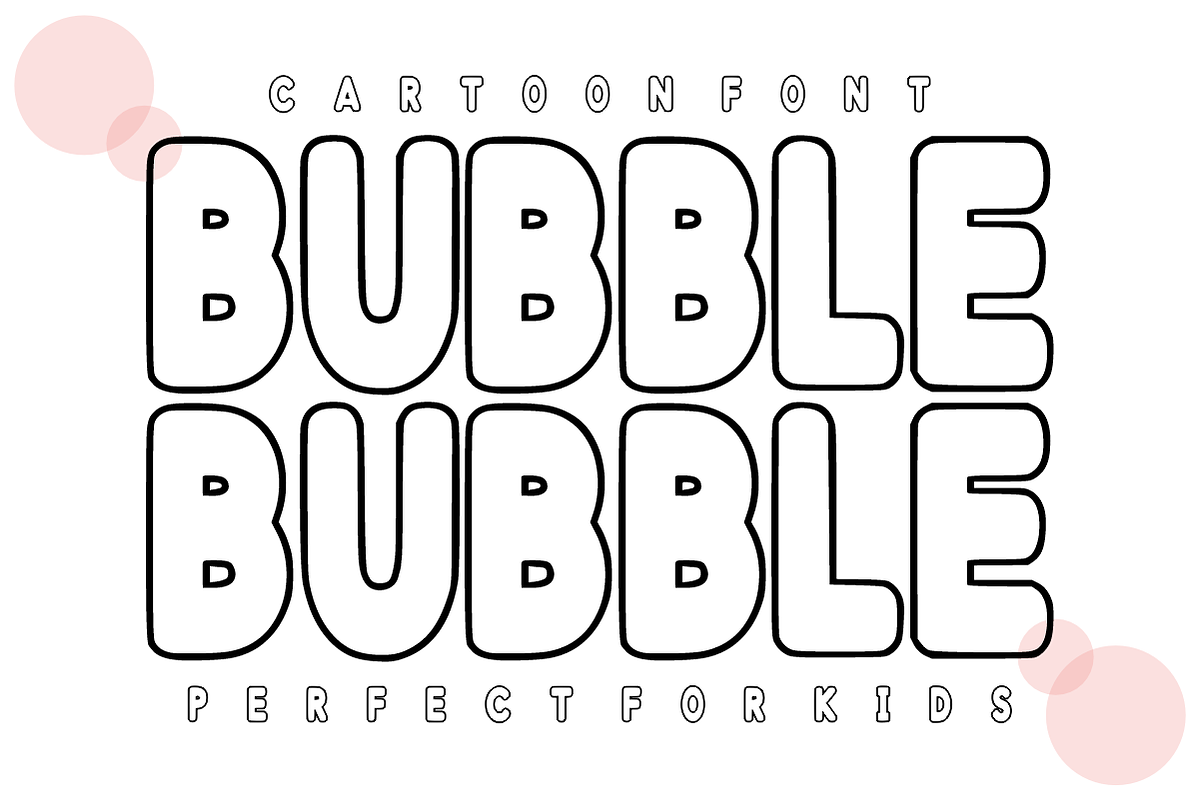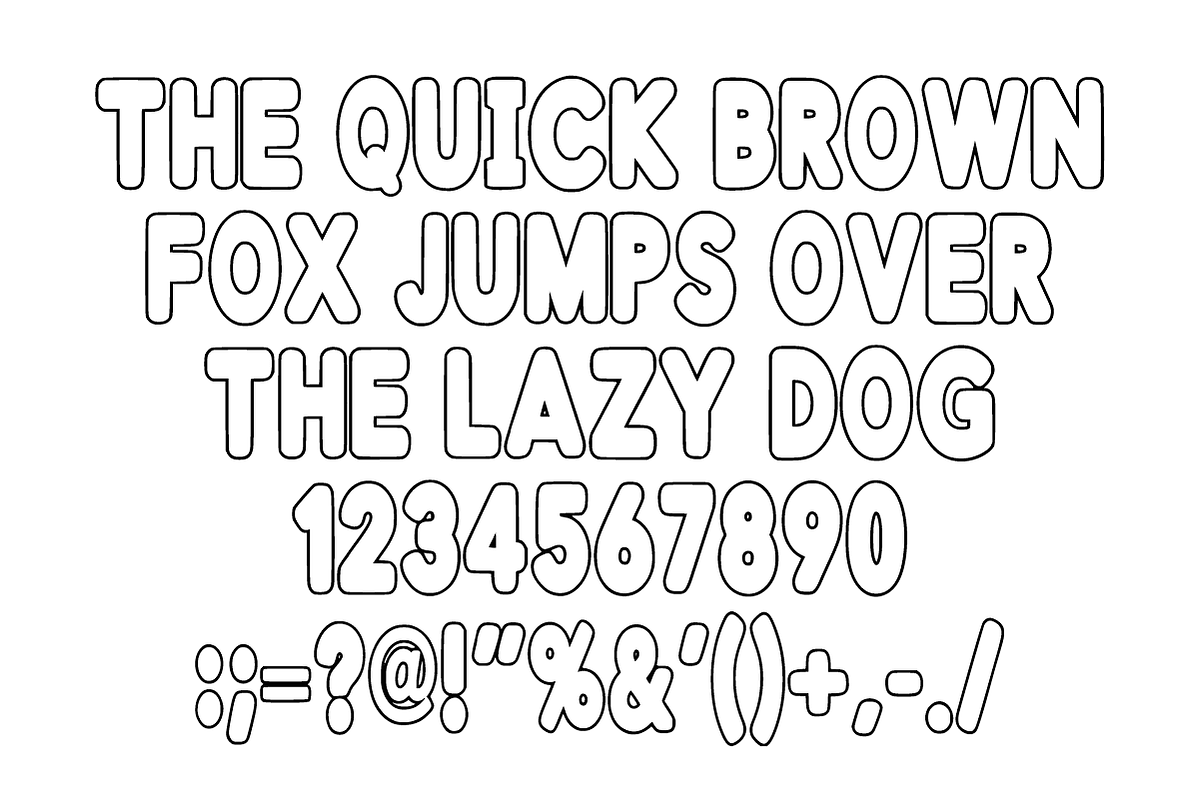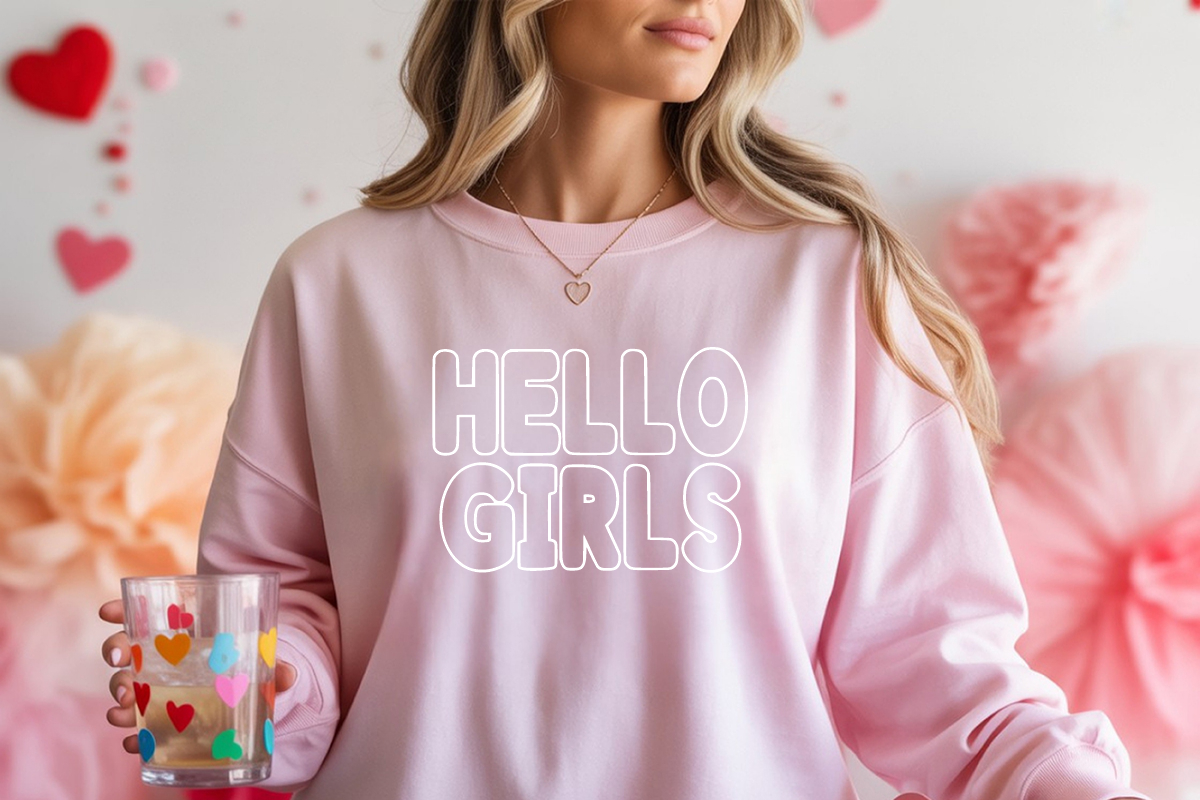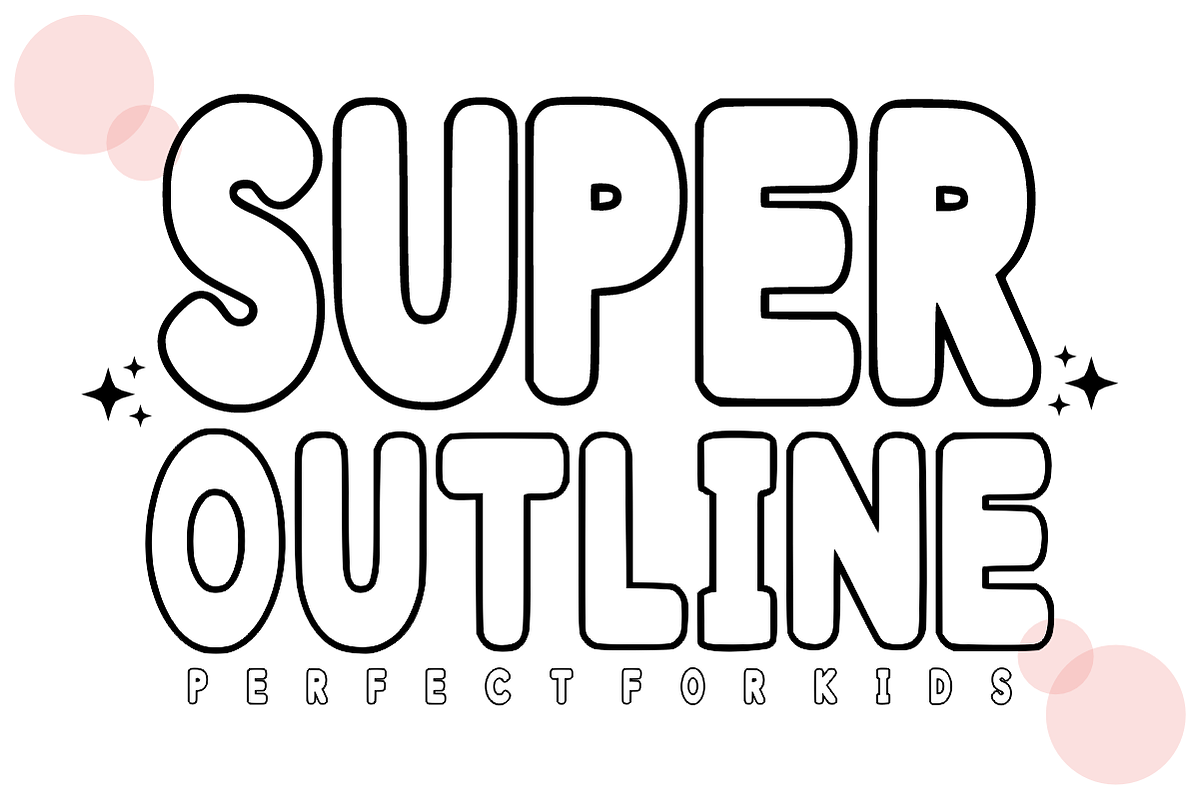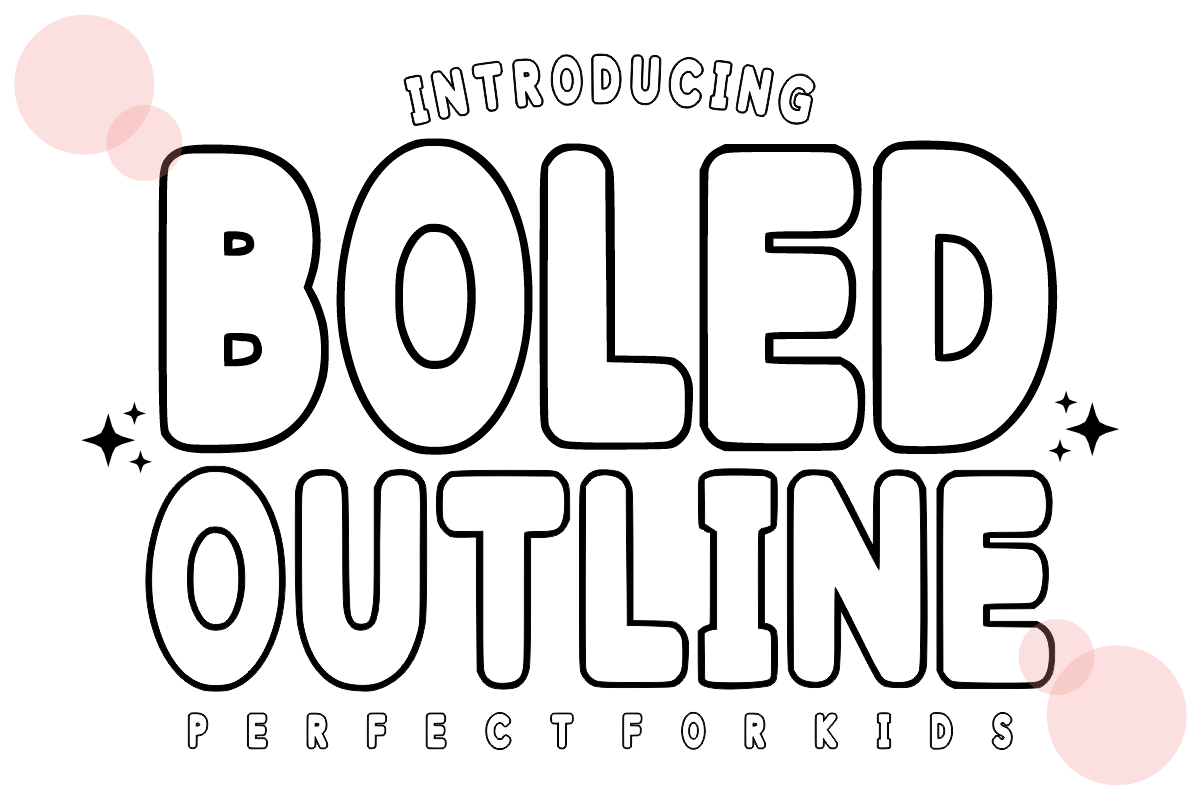
Boled Outline – Playful Display Font
Boled Outline – Playful Bubbly Display Font ✨🎈
Add a light, airy, and high-impact look to your creative projects!
Boled Outline is a bold, bubbly display font designed with a clean and trendy outline aesthetic. Its ultra-rounded, chunky silhouette makes it an instant attention-grabber, while the hollow center provides a modern, "sticker-style" vibe that is incredibly popular right now. Whether you want to layer it over vibrant colors or use it as a standalone title, Boled Outline brings a sense of fun and energy to any canvas.
🌟 Why Boled Outline is a Must-Have:
Clean & Bold Silhouette: Features perfectly rounded edges and consistent line weight for maximum readability and style.
Sticker-Style Aesthetic: Ideal for creating trendy outlines, double-border effects, and playful merchandise.
Perfect for Layering: Works beautifully when placed over solid shapes or photos, allowing your background to peek through.
🎨 Perfect For:
🛍️ Modern Branding: Fun and friendly logos for boutiques, candy shops, or creative studios.
👕 Merchandise & Stickers: Create on-trend t-shirt graphics, tote bags, and die-cut vinyl stickers (Cricut & Silhouette friendly).
📱 Social Media Content: Eye-catching Instagram headers, TikTok overlays, and playful YouTube thumbnails.
🎂 Kids’ Products & Events: Birthday invitations, nursery wall art, school posters, and toy packaging.
✍️ Crafting & DIY: Ideal for scrapbooking, personalized labels, and festive greeting cards.
Character Set: Bold & Playful Uppercase Letters (A-Z).
Numbers & Symbols: Matching numerals (0-9) and essential simple punctuation.